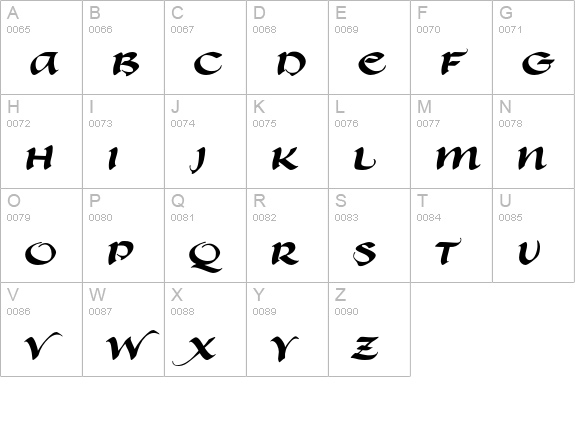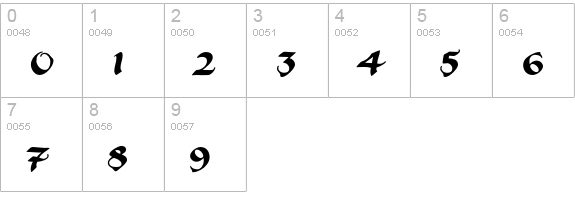
Sweeney Std Font Details
Sweeney Std is a versatile and modern font that exudes elegance and sophistication. With its clean lines and timeless appeal, this font is perfect for a wide range of design projects, from branding to editorial design. The sleek and stylish aesthetic of Sweeney Std makes it a go-to choice for designers looking to add a touch of class to their work. What's even better is that Sweeney Std is available for free download at FontsMarket.com. This means that you can easily access this beautiful font without any cost, making it a must-have addition to your font collection. Whether you're a professional designer or just someone looking to elevate their projects, Sweeney Std is sure to impress with its impeccable design and easy accessibility. Download Sweeney Std today and let your creativity shine!